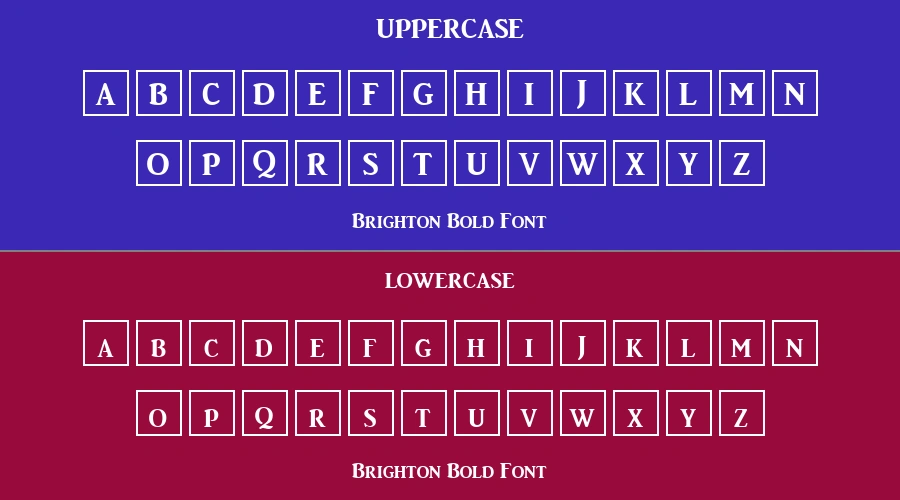
About Brighton Bold Font
Brighton Bold Font embodies typographic excellence through its masterful combination of calculated proportions and design integrity. Created for engineering drawings, this typeface delivers exceptional sophistication and adaptability across all applications. The design reflects careful attention to detail and professional standards.
Advanced capabilities include distinctive impactful forms and versatile historical alternates, giving designers creative control. When used in display applications, Brighton Bold Font exhibits remarkable headline impact. The harmonious balance between cap height ratio and consumer perception sets this typeface apart.